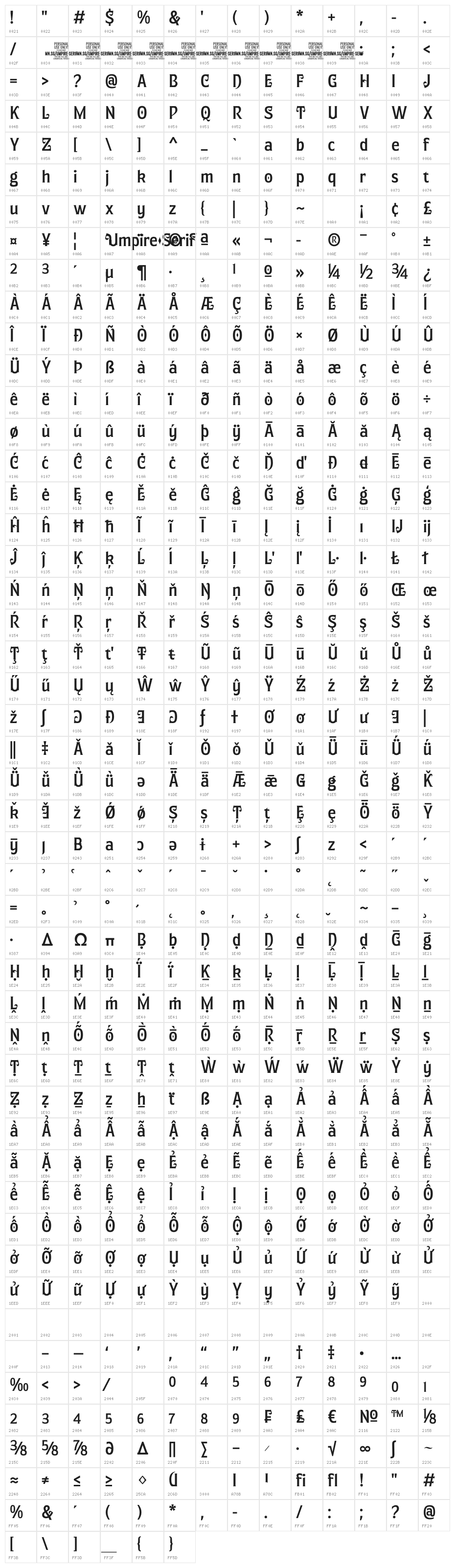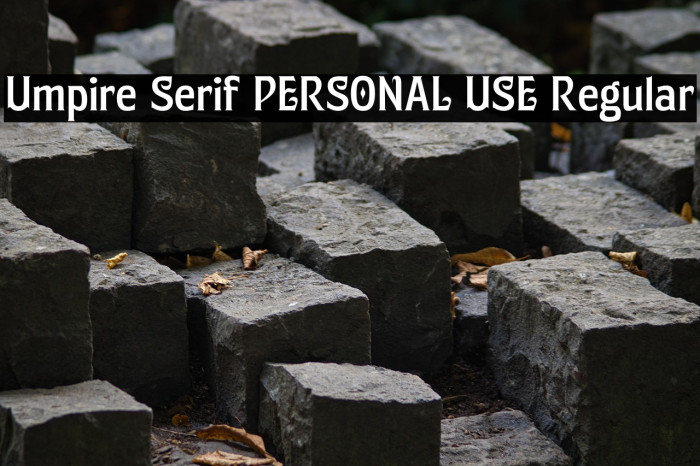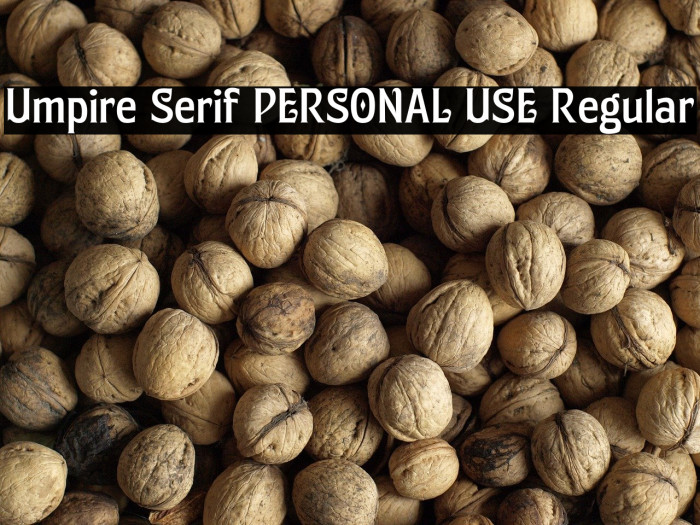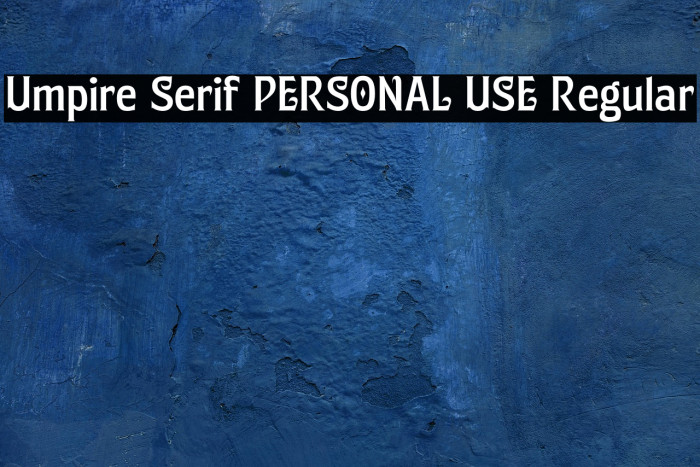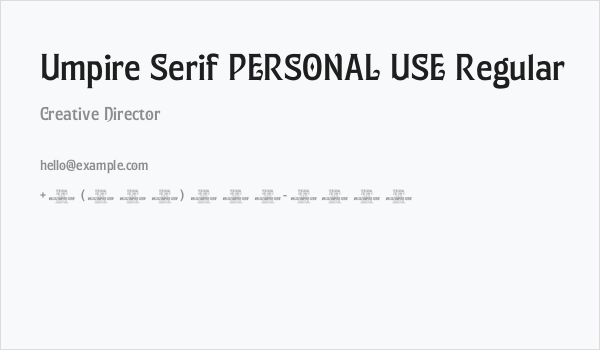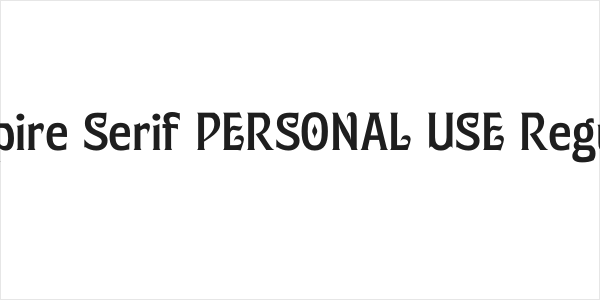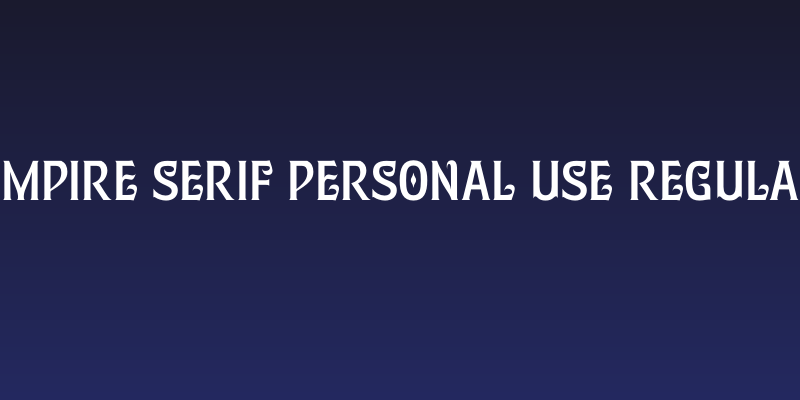
Umpire Serif PERSONAL USE Regular Font
Umpire Serif PERSONAL USE Regular Description
This font features a unique blend of traditional serif elements with a modern twist, characterized by its distinct, slightly curved serifs and bold strokes. The uppercase letters exhibit a strong presence with angular cuts and subtle flourishes, while the lowercase letters maintain a consistent style with a slightly more subdued flair. The numerals and special characters are designed to complement the alphabet, maintaining the same bold and decorative style. This font is ideal for creating a striking visual impact, making it suitable for headlines and titles that require a touch of elegance and boldness.